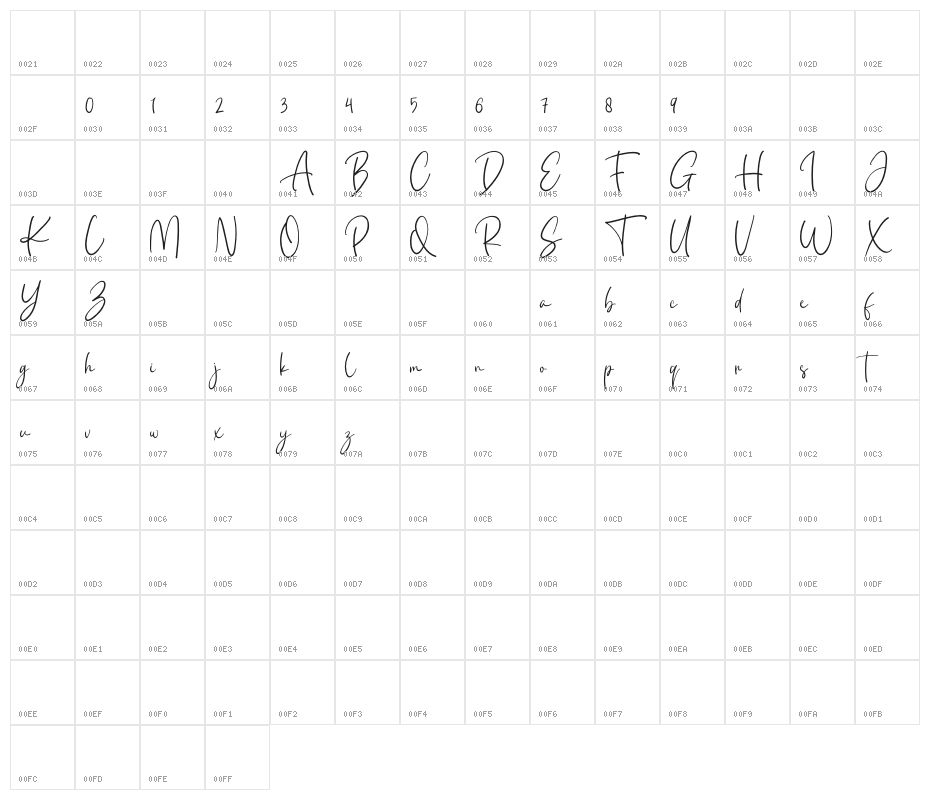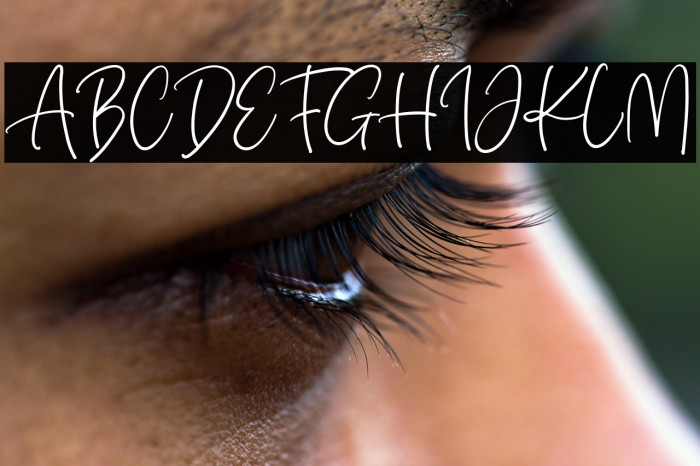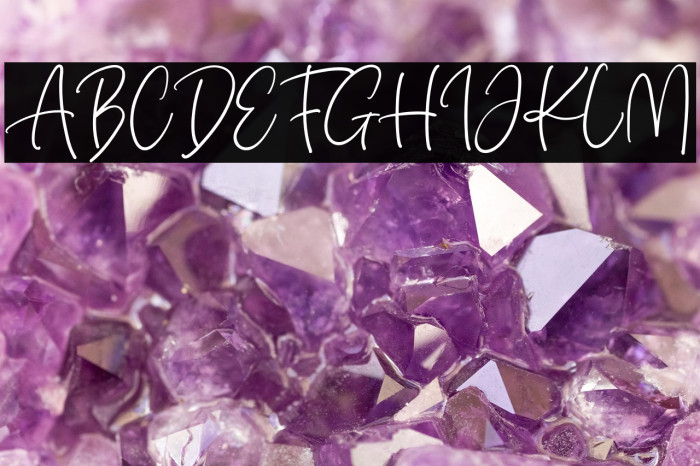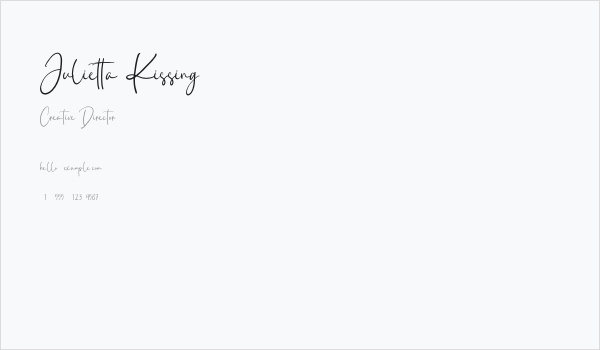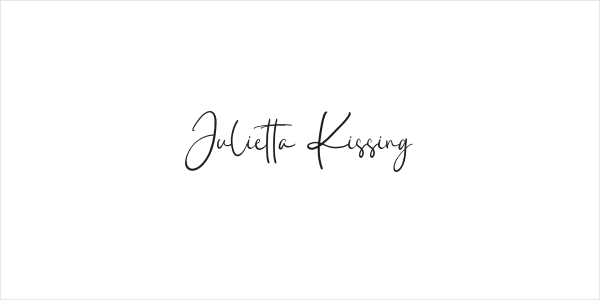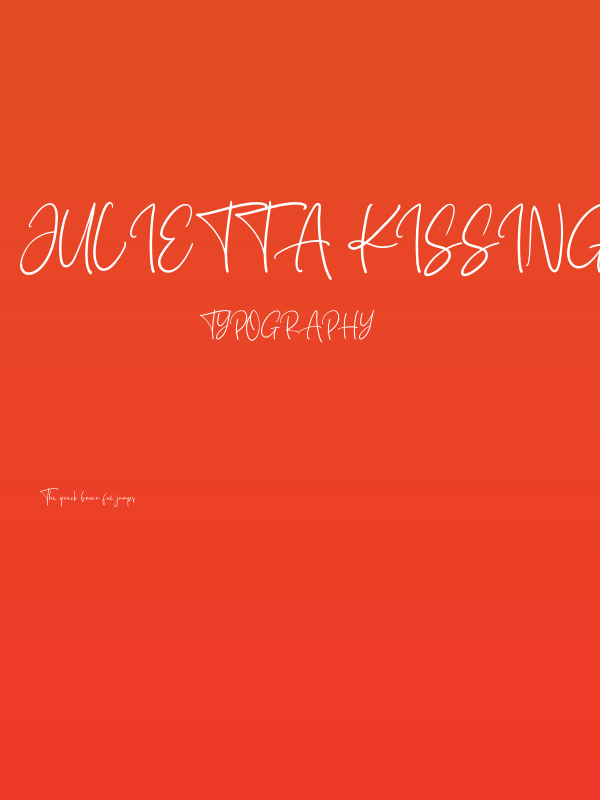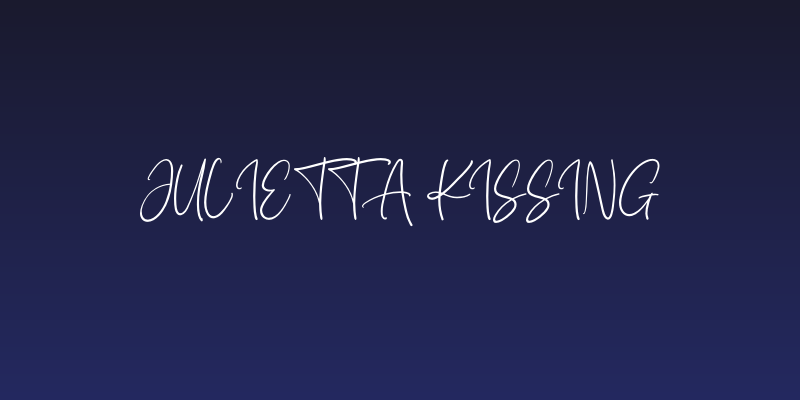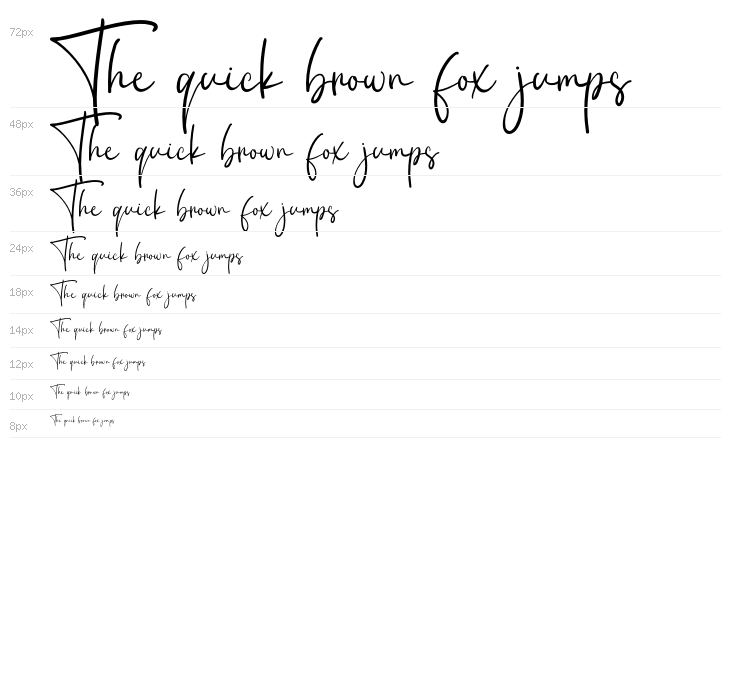
Julietta Kissing Font
Julietta Kissing Description
This font exudes a playful and romantic vibe with its flowing, cursive style. The letters are elegantly connected, creating a sense of continuity and fluidity. The uppercase characters are tall and slender, while the lowercase letters maintain a consistent, graceful curve. The numbers are distinct yet harmonize well with the overall script style. This font is perfect for adding a personal touch to any design, making it ideal for invitations, greeting cards, and other creative projects.
| Overall Style | Romantic, Playful |
| Proposed Projects | Ideal for wedding invitations, greeting cards, personal branding, and romantic-themed designs. |